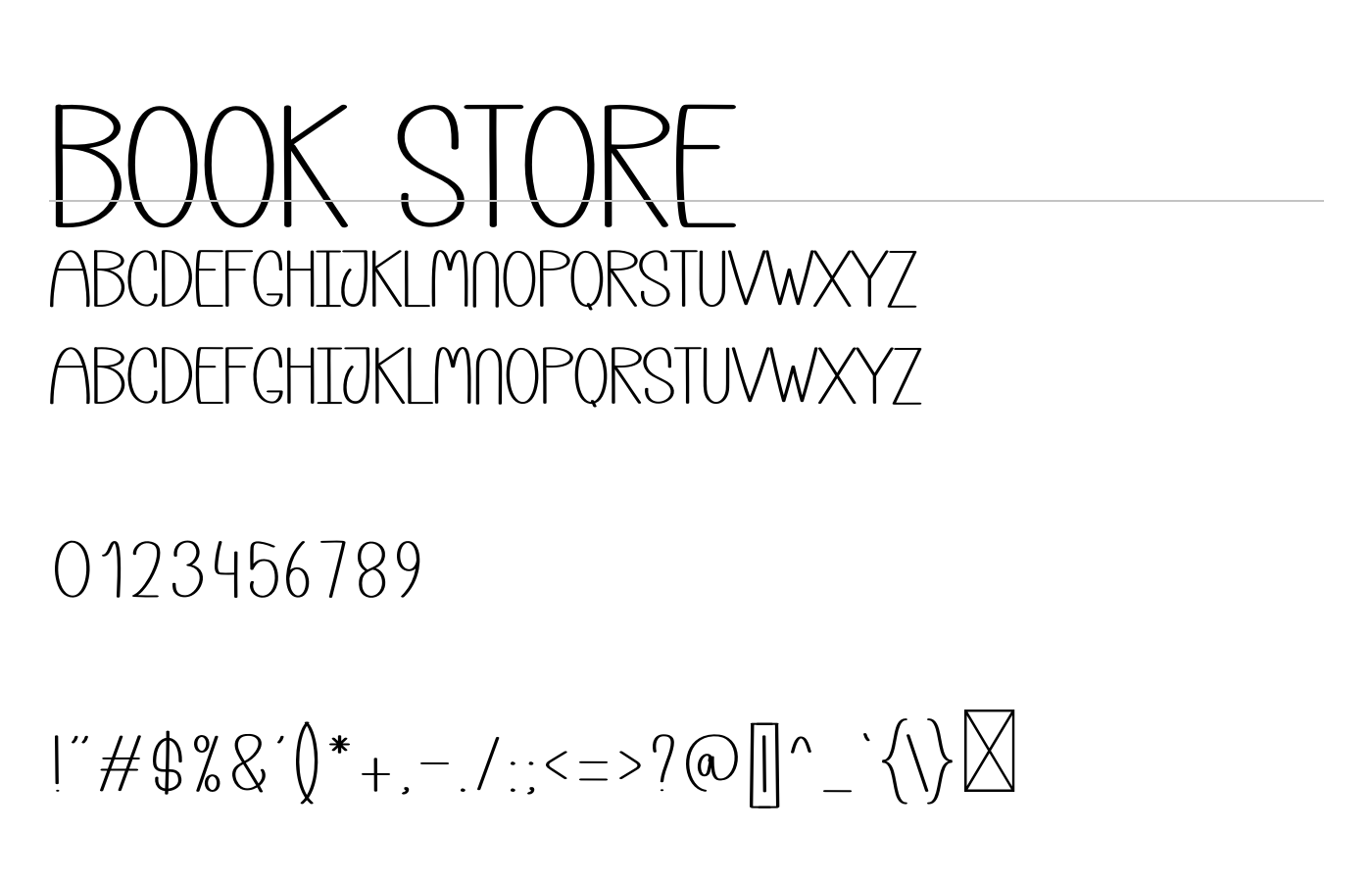
Book Store Font is a slender, whimsical sans serif typeface featuring tall, narrow letterforms with a delicate stroke and playful curves. Its light weight and informal style give it a friendly, handwritten feel, making it perfect for creative projects, casual branding, and inviting headlines where a touch of charm and personality is desired.
Book Store Font